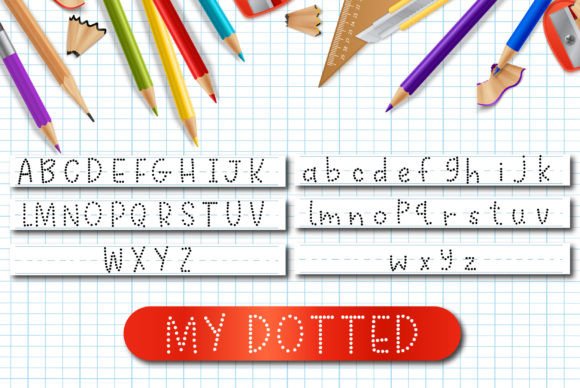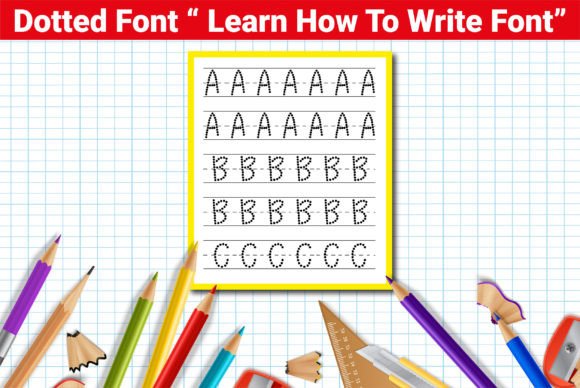
My Dotted Font
About My Dotted Font
“My Dotted,” is a versatile and user-friendly handwritten font that excels in producing alphabet tracing sheets and related educational content. Its distinctive dotted design makes it an excellent choice for children and individuals of all ages who wish to improve their handwriting skills.
This font is not only functional but also highly adaptable. It can be seamlessly integrated into various applications, such as creating custom alphabet practice sheets, developing educational materials, designing diary planners, journals, and crafting engaging social media posts. Its friendly and approachable aesthetic adds a delightful touch to any project, making it perfect for back-to-school initiatives, invitations, and a wide range of do-it-yourself (DIY) endeavors.
By adding “My Dotted” to your font library, you’re not only enhancing your creative toolkit but also ensuring that your educational and design projects stand out with clarity and charm. Whether you’re an educator, parent, or designer, this font will prove to be a valuable asset for enhancing learning experiences and crafting visually appealing content.
So, consider “My Dotted” as your go-to font for all things related to handwriting practice, educational materials, and creative design projects. Its versatility and friendly demeanor will undoubtedly make it a favorite choice for various applications, ensuring that your work comes to life with a personal and engaging touch.